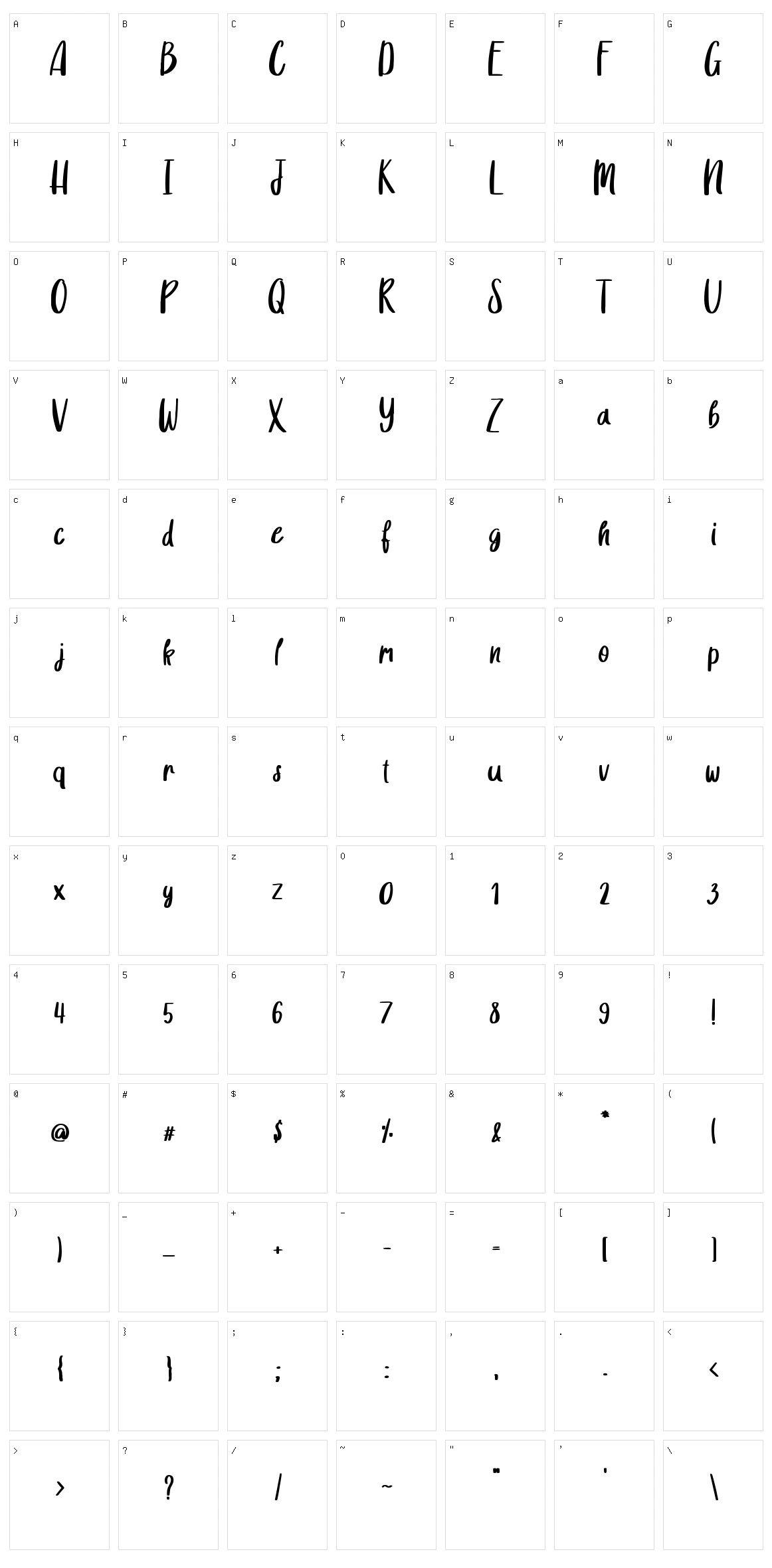
The free font Celebration is carefully designed by AquariiD, showcasing a thoughtful balance of creativity and usability and falls under the Script font style. When you download the ZIP file, it contains only 17.34 KB of font files, making it lightweight and quick to download. Please review the license details below to understand permitted usage and distribution rights. If license information is not available, we recommend using this font for personal projects only or contacting the author directly for commercial usage permissions.